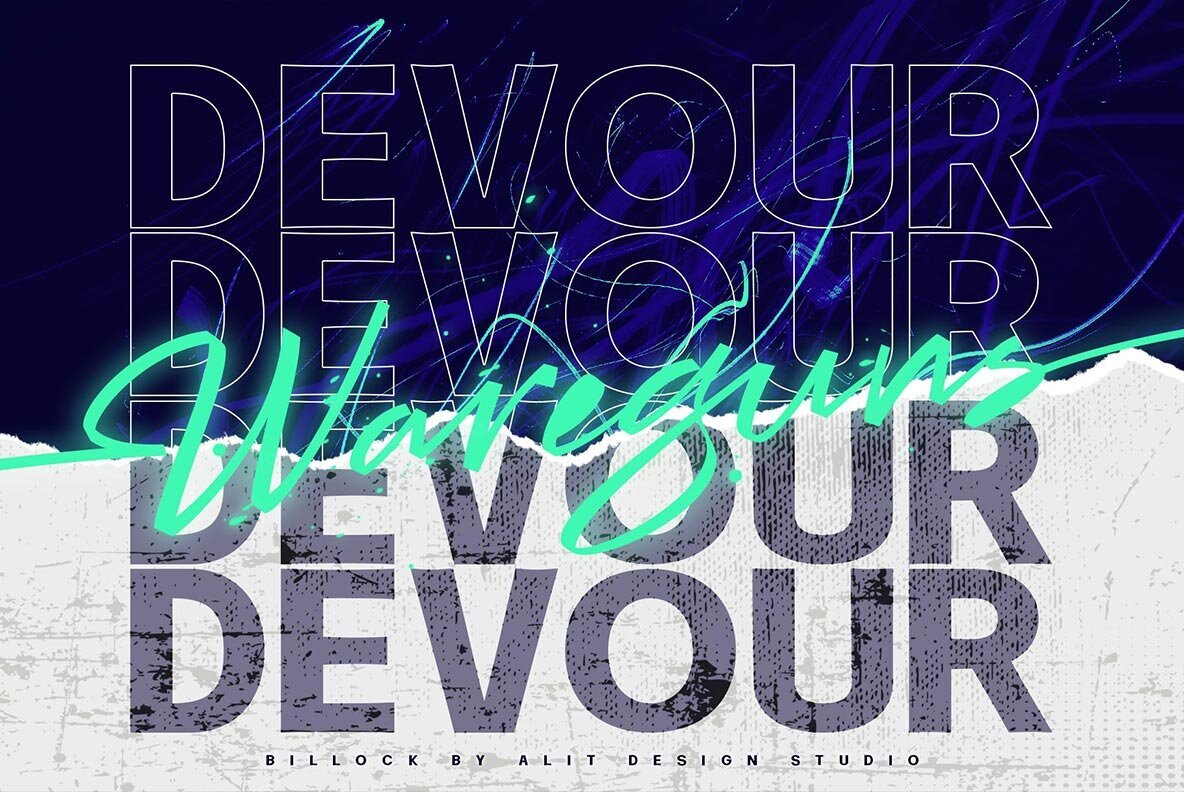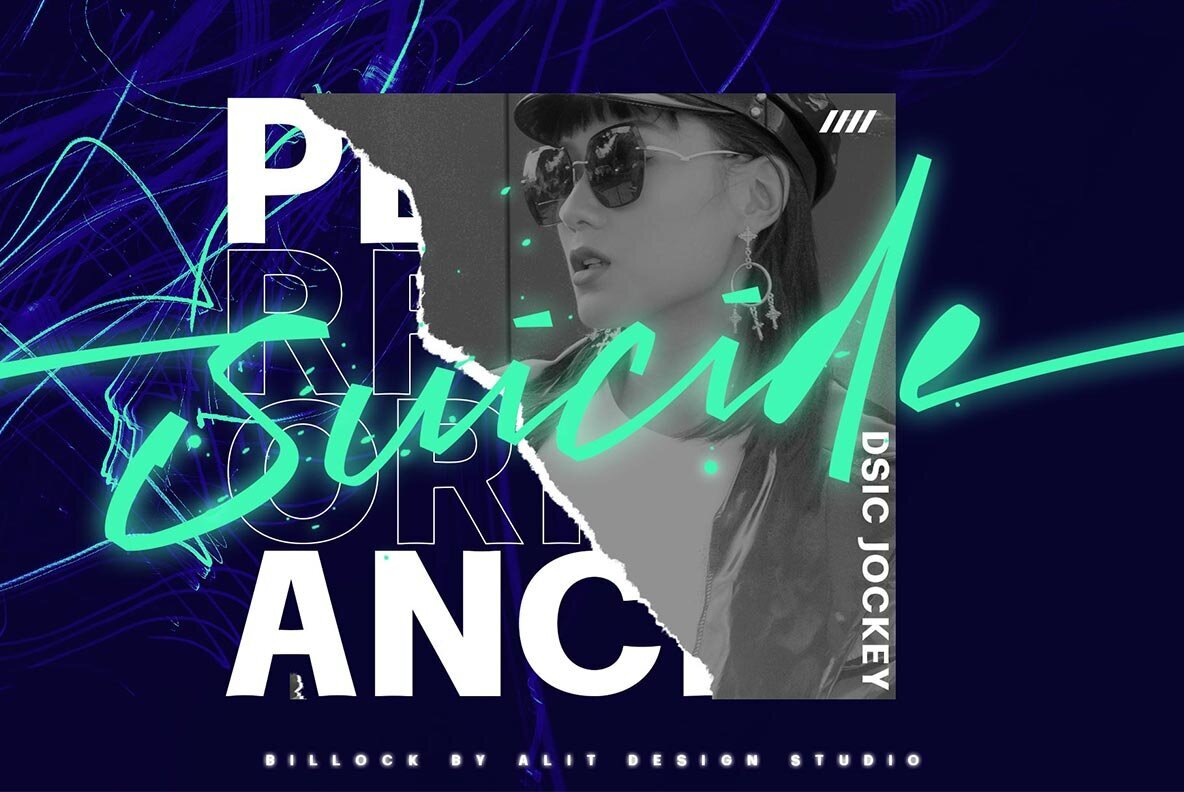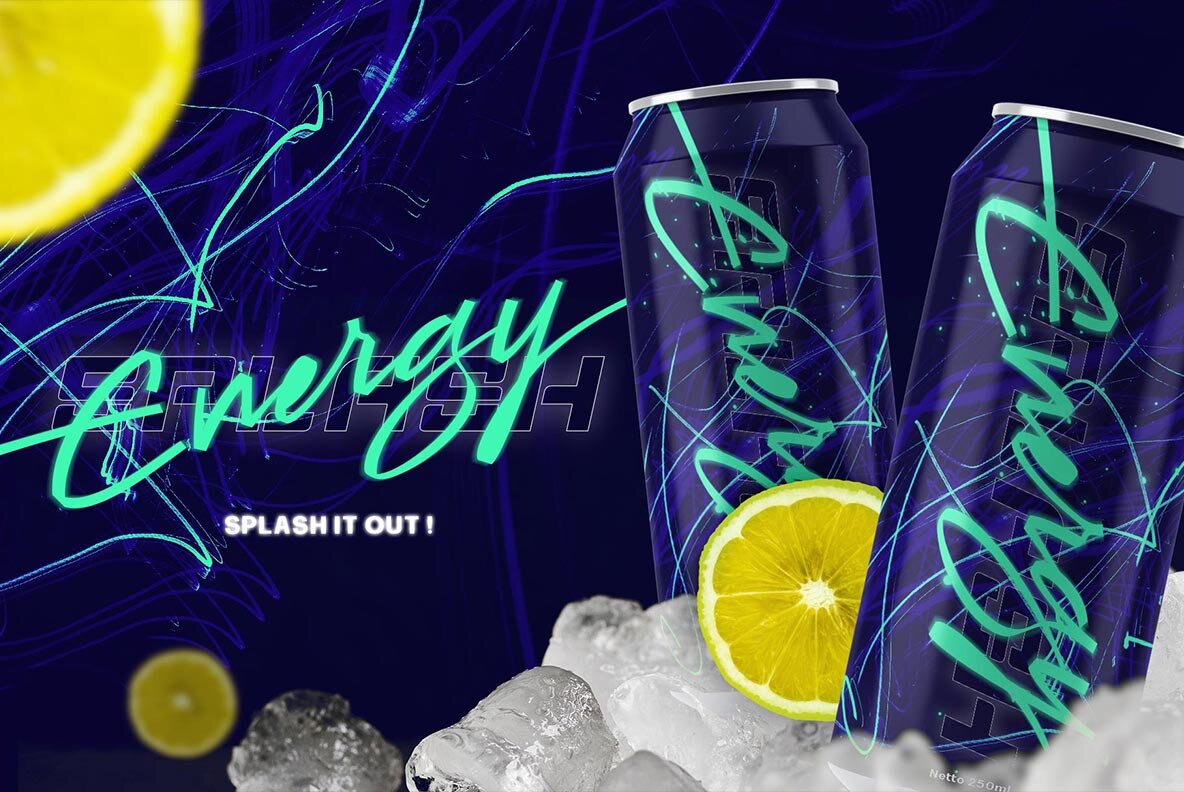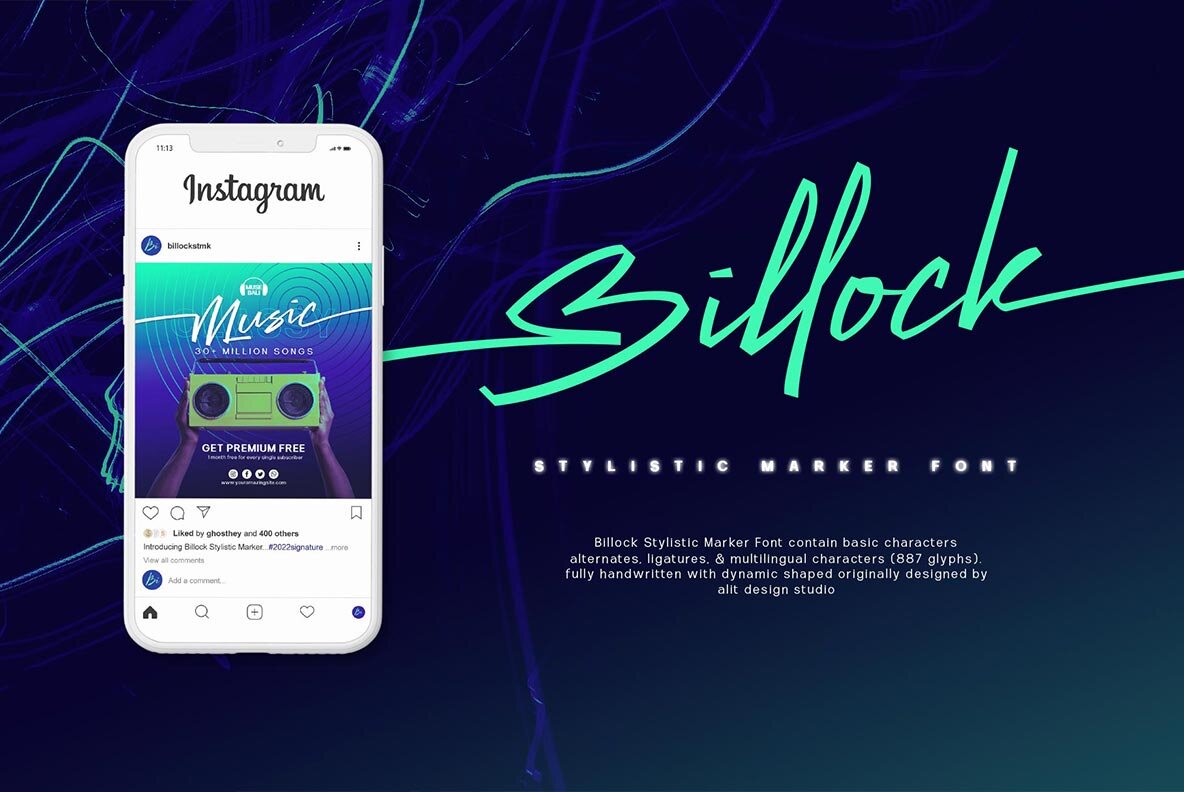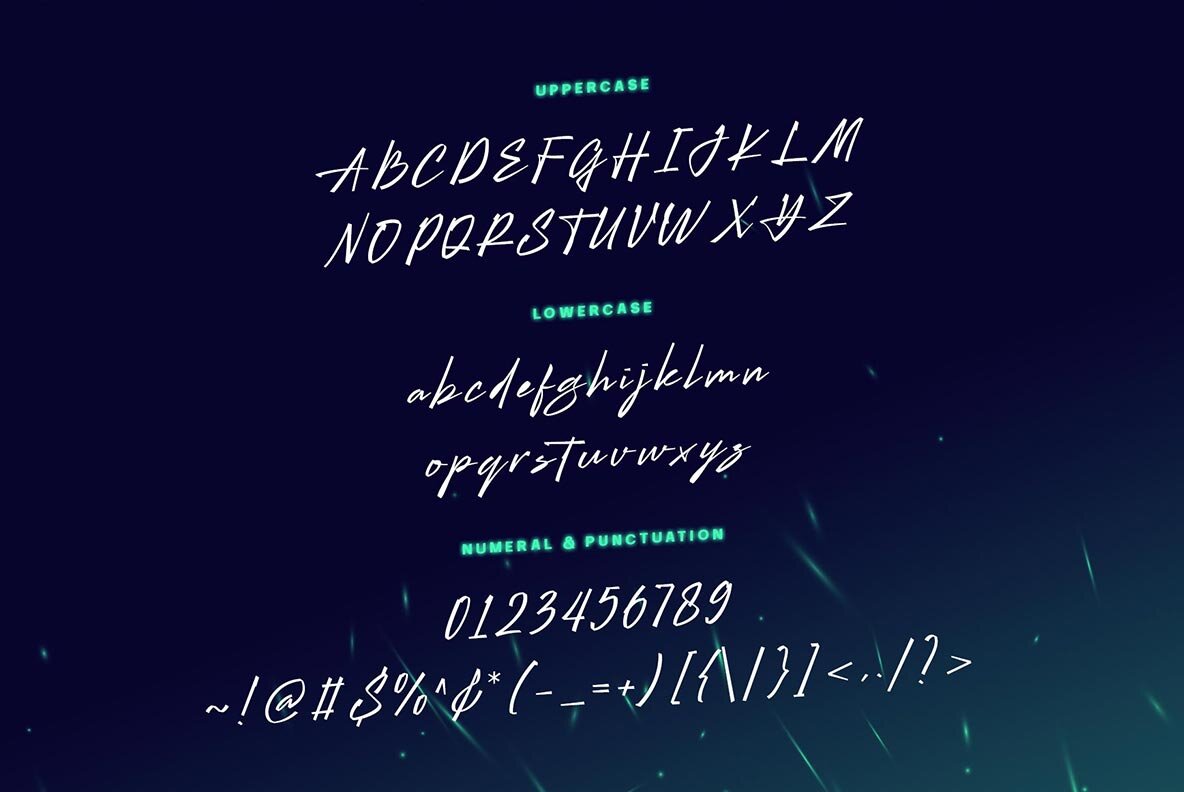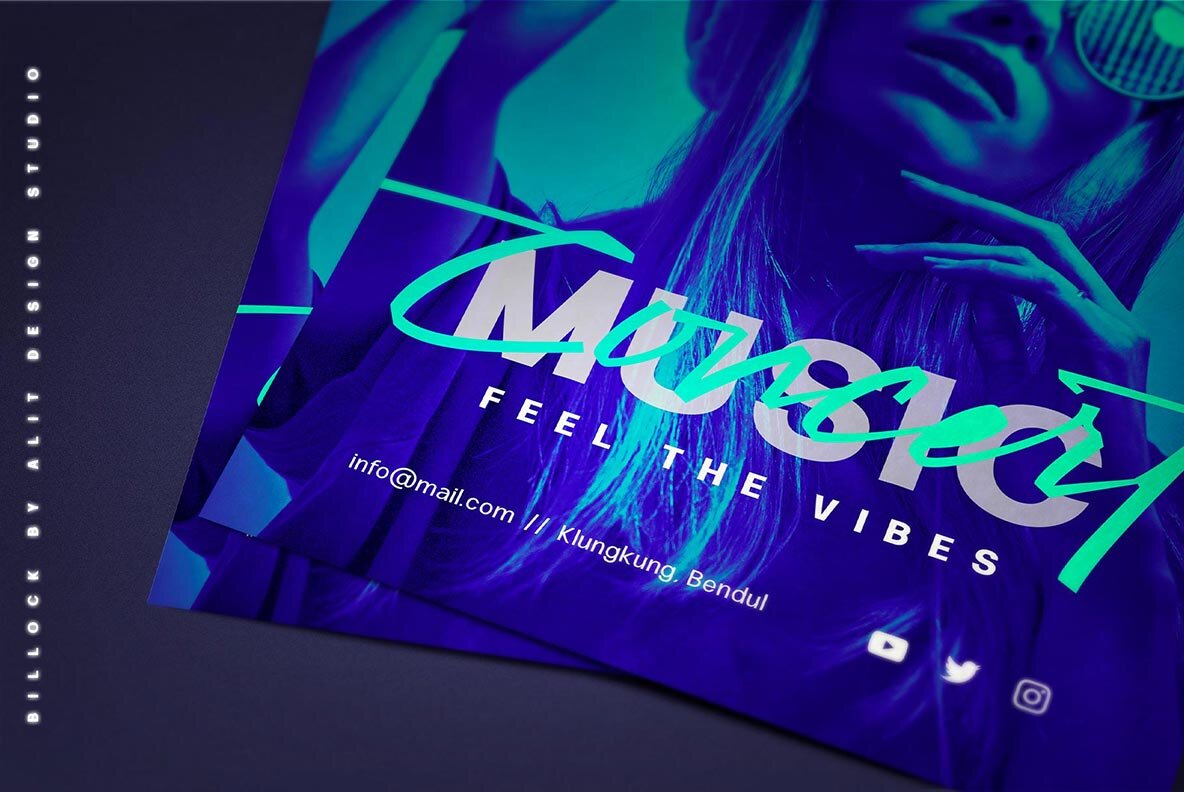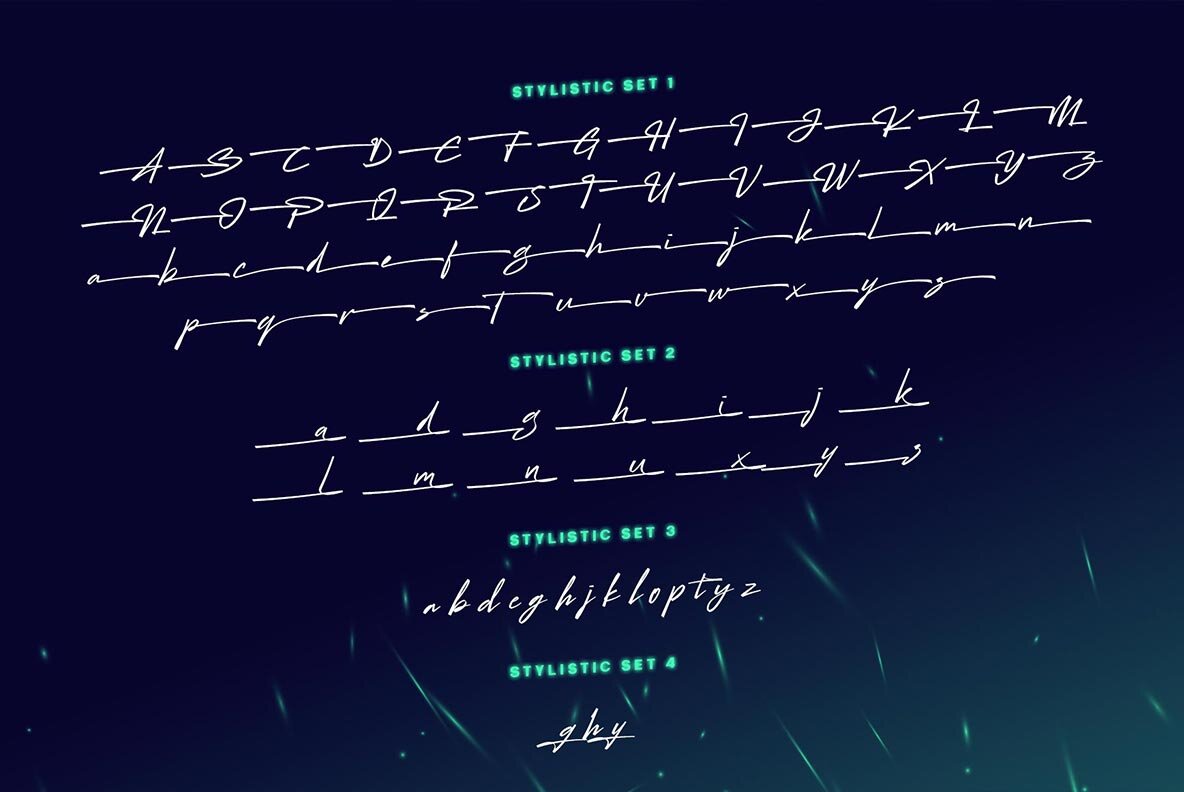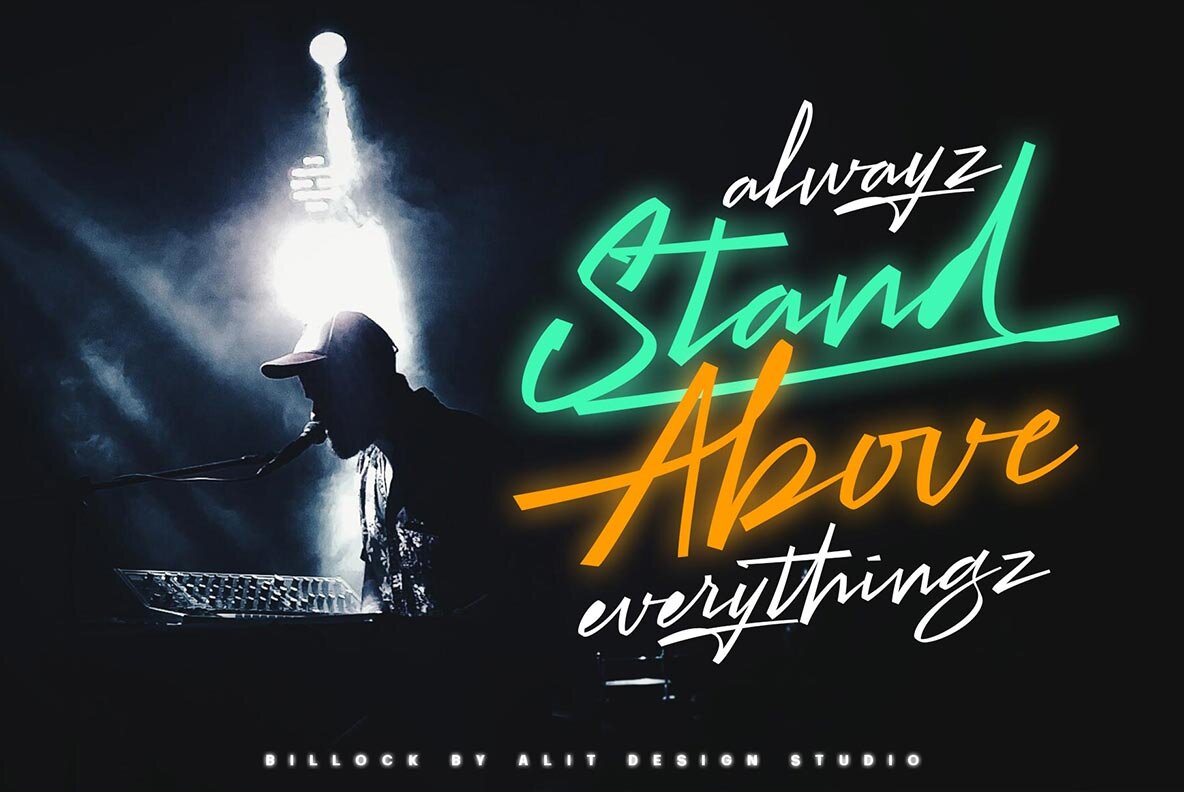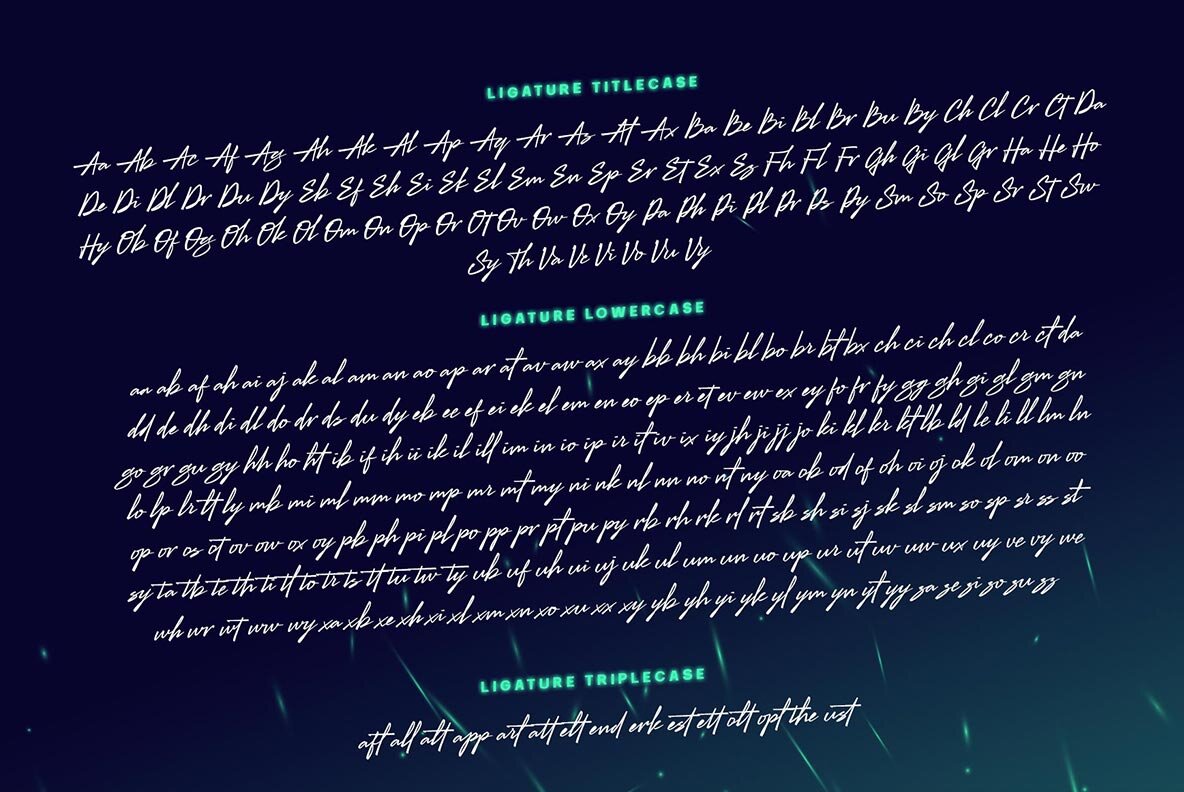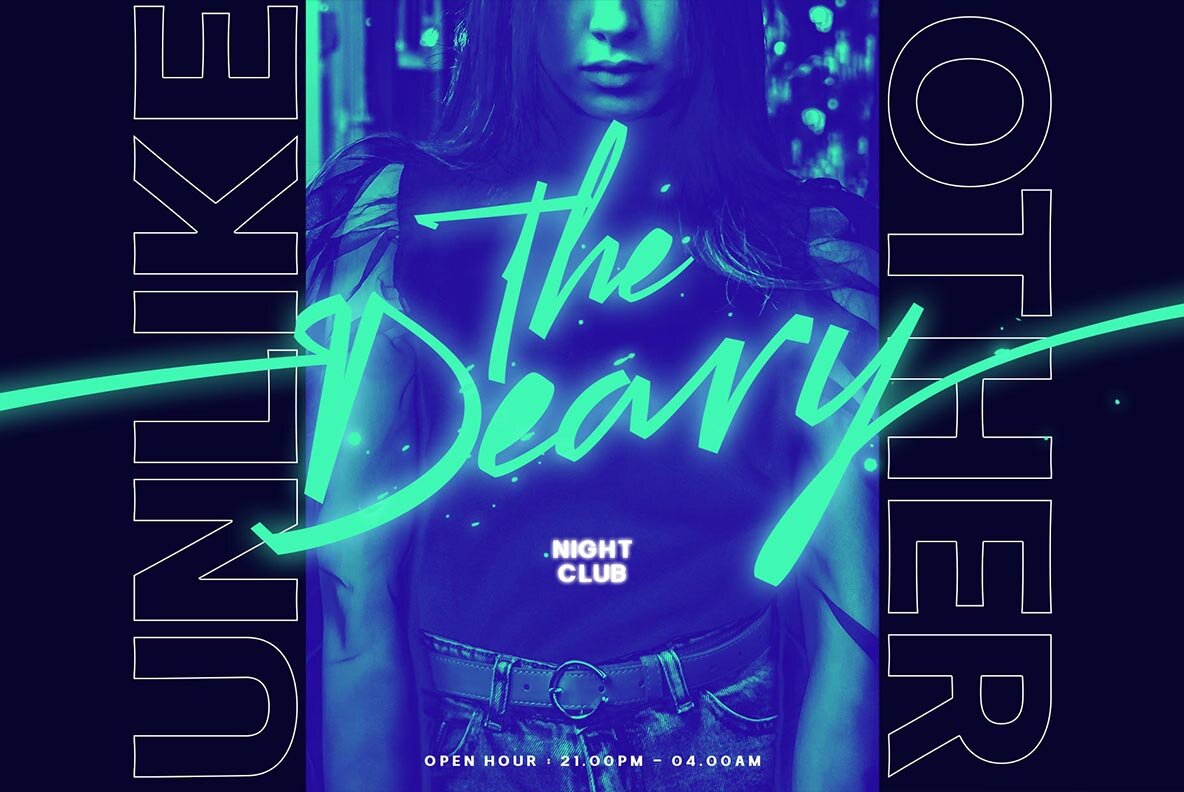
Billock Script font
Billock Regular
The Billock script font is inspired by the strokes of a highlighter marker that has a bold square character combined with a dynamic signature script style. Combined with the concept of bright and neon colors, the design of the Billock font becomes more sporty and modern. This Billock script font is very suitable to be the latest collection of your font library, because it has many and very unique swashes and alternatives that make the designs you will make look different and cool.
The Billock Script font is perfect for magazine cover designs, brochures, flyers. Instagram ads, Canva Design and so on with unique and modern concepts. besides that this font is very easy to use both in design and non-design programs because everything changes and glyphs are supported by Unicode (PUA).
The Billock Script contains 887 glyphs with many unique and interesting alternative options.
Language Support : Latin, Basic, Western European, Central European, South European,Vietnamese.